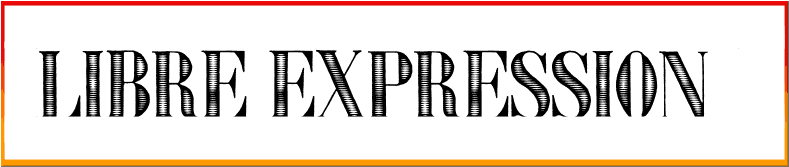
Libre Expression Font
Libre Expression
Libre Expression is a fancy font designed by Imagex. It's a decorative display font with plenty of personality, made to grab attention. It's a free download, and you can try it with your own text in the preview above first.
You get every letter from A to Z in both cases and all the numbers from 0 to 9, which means Libre Expression can handle full sentences, dates and prices. Everyday marks like &, !, ? and @ are there too. Thanks to its accented letters, it also works for Spanish, French, German, Portuguese and Italian, not just English.
Think of Libre Expression for posters, logos and eye-catching headlines. Use it for one standout word or headline and let simpler fonts handle the rest.
Yes. Libre Expression includes the accented letters needed for Spanish, French, German, Portuguese and Italian, so it works for more than just English.